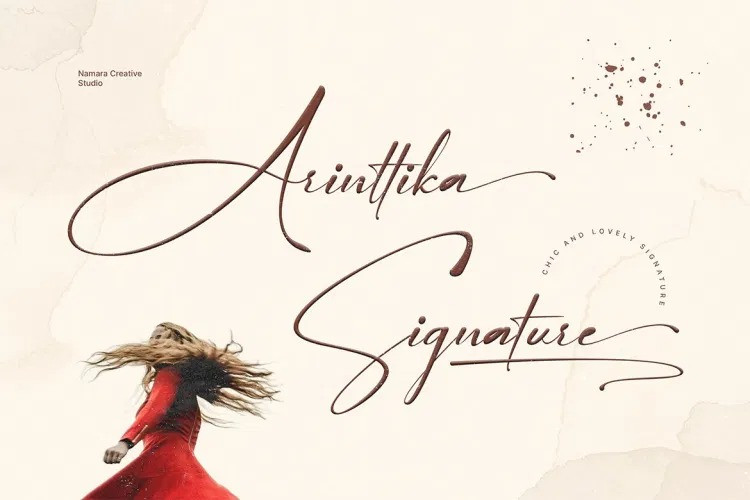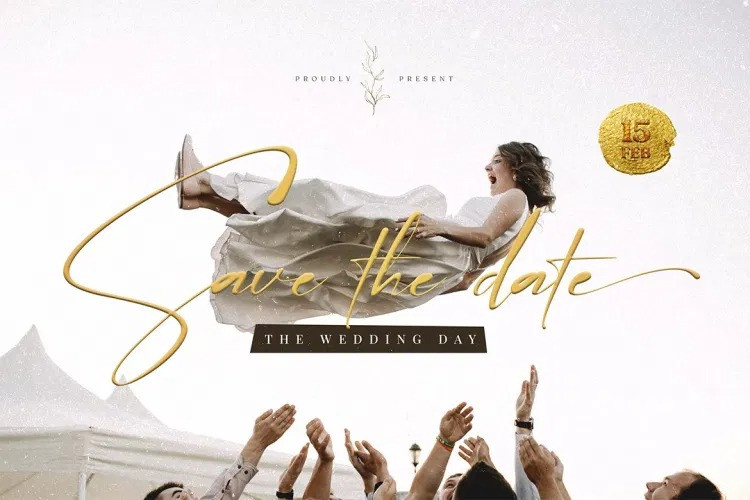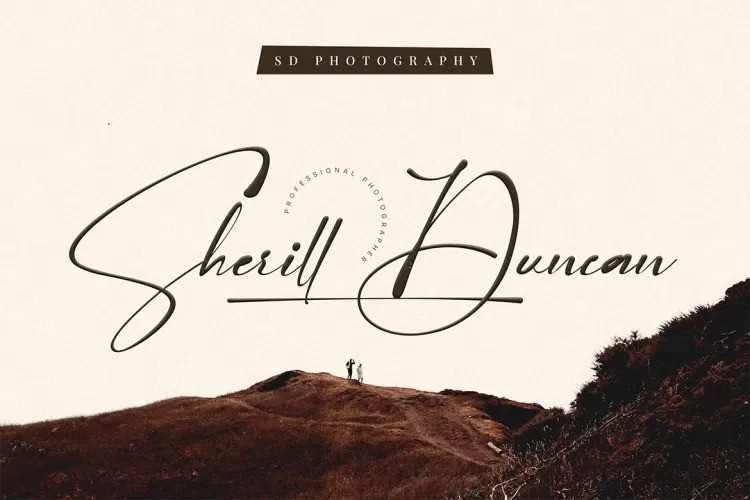
Wedding Vintage Font
Wedding Vintage Script Font is a sophisticated and cool handwritten font that can elevate the look of any creation! Add it to any of your lovely projects that require an authentic and exquisite look!